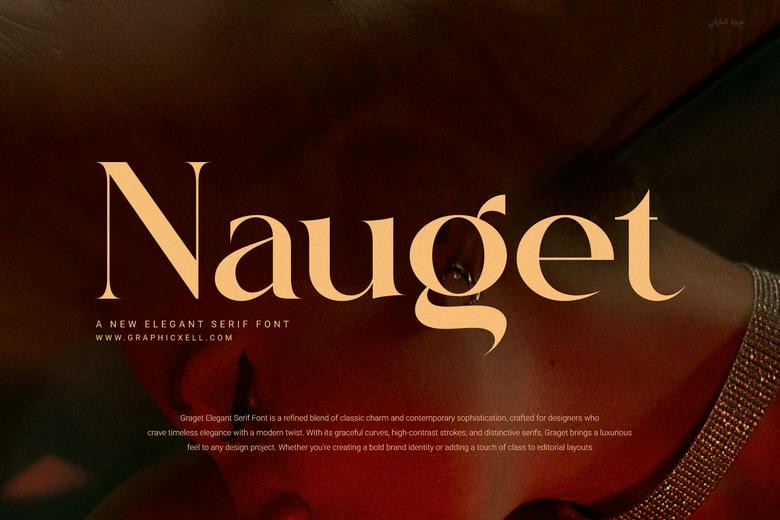
Nauget Elegant Serif Font is a fresh and nice-looking serif that was created with the requirements of modern design in mind. It includes conventional shapes and gentle curves to make your work professional-looking. Nauget is a wonderful font with an elegant and yet simple design as it can be easily used both in print and on the screen.
The structure of this font is clear, and proportions are neat. It has also creative ligatures that will give your texts more natural and well-designed appearance. This font gives the much-needed flair to a logo, or a web page design, or any page design that needs the right touch of class.
Nauget Serif Font